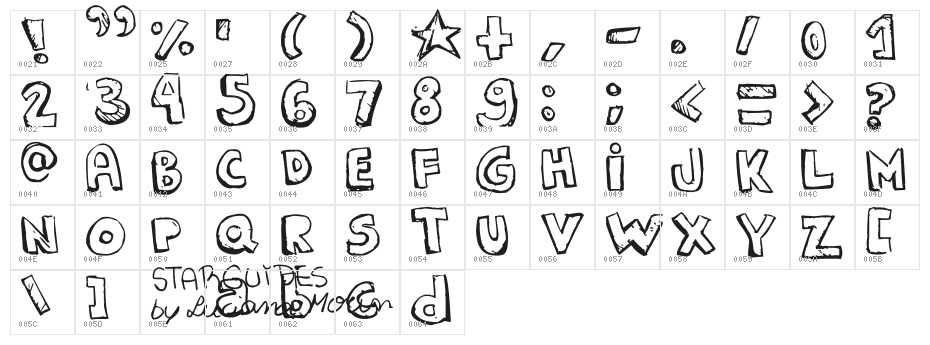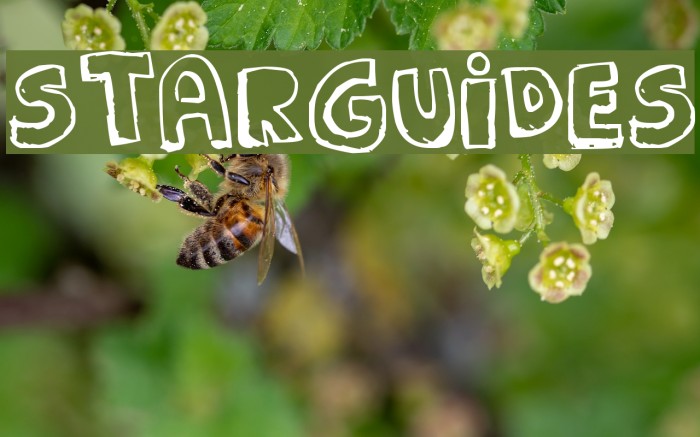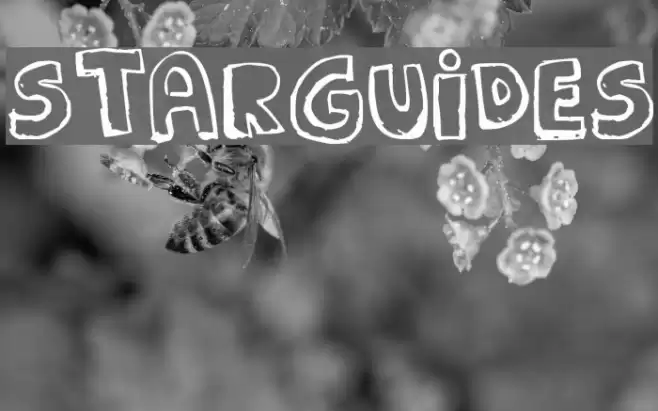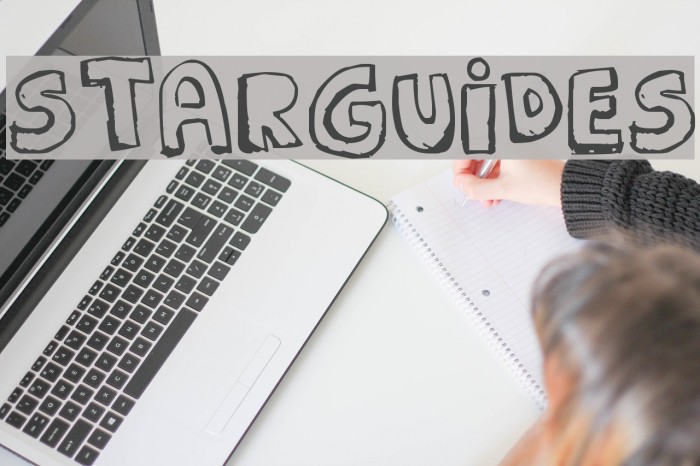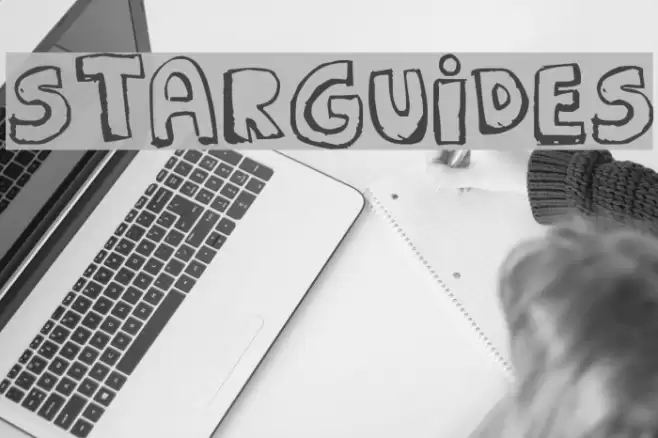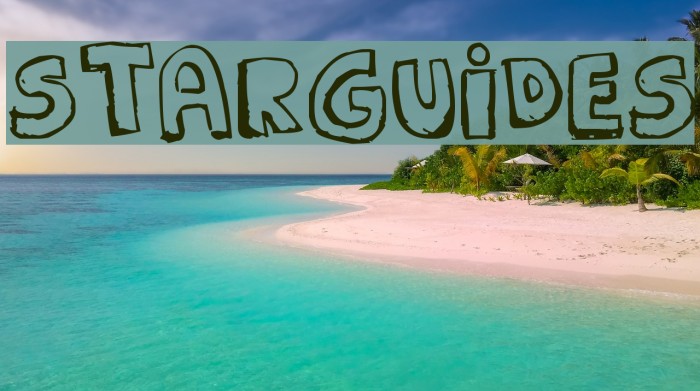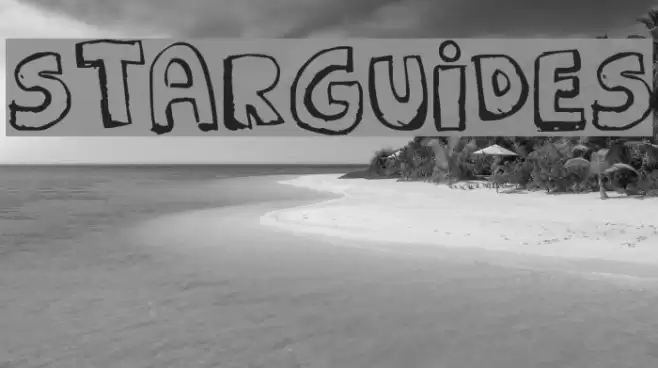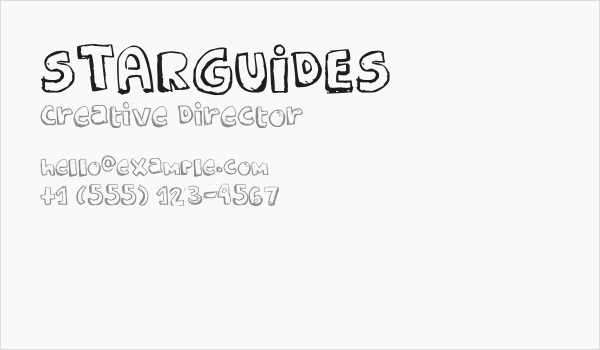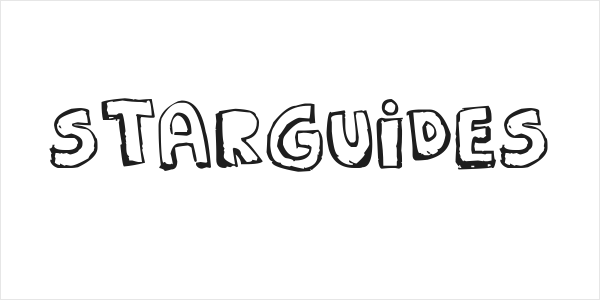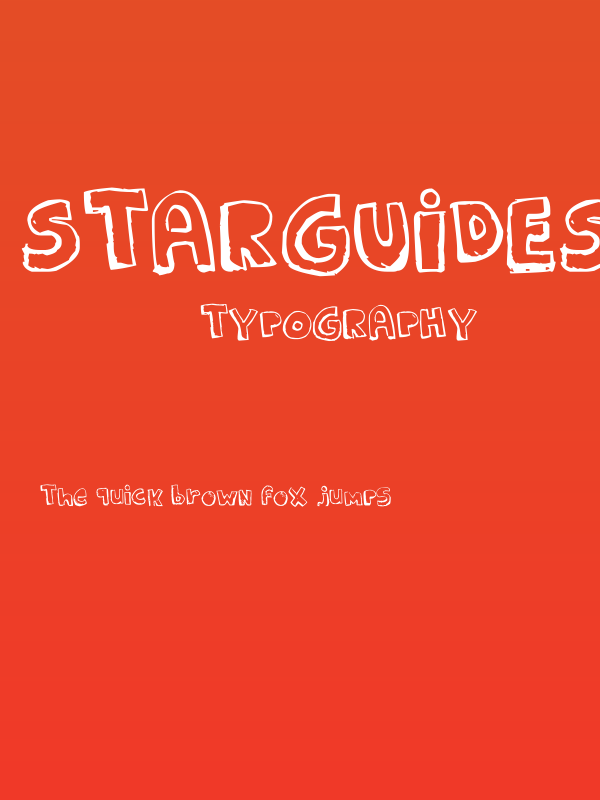
STARGUIDES Font
STARGUIDES Description
This font features a playful and bold style with a hand-drawn appearance. Each character is outlined with a thick, uneven stroke, giving it a sketch-like quality. The letters are slightly irregular, adding to the whimsical and informal feel. The uppercase and lowercase letters maintain a consistent style, with rounded edges and a slightly exaggerated form. Numbers and special characters follow the same design principles, ensuring a cohesive look throughout. This font's unique and artistic style makes it stand out, perfect for projects that require a fun and creative touch.
Overall StyleWhimsical
Proposed ProjectsIdeal for children's books, comic strips, playful branding, and creative posters.